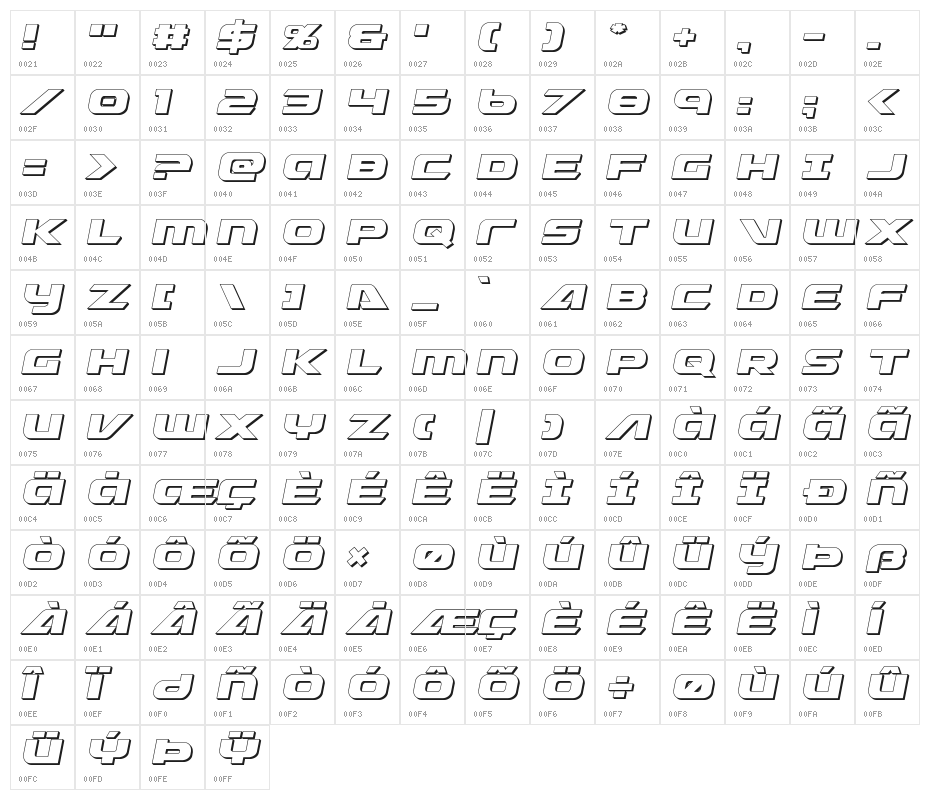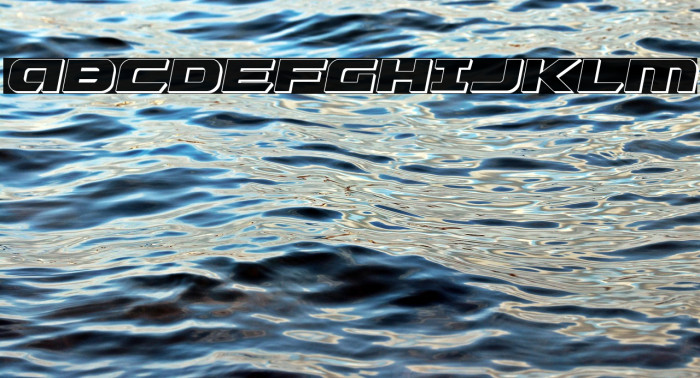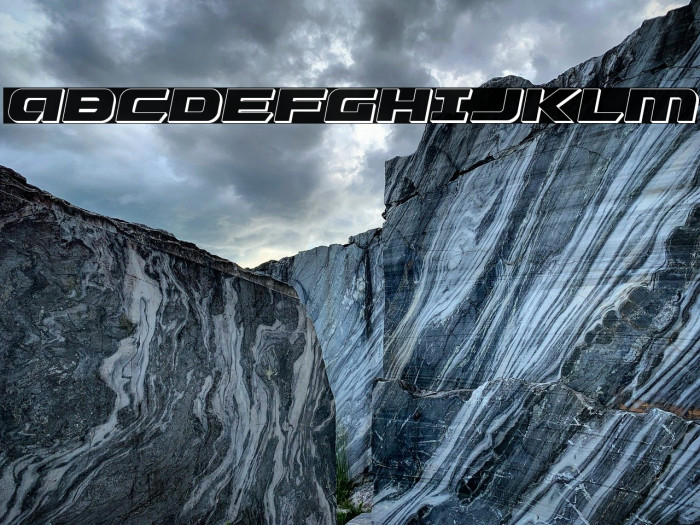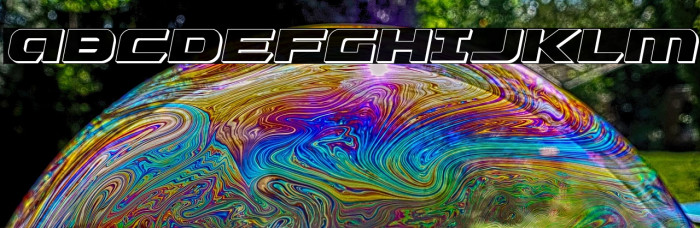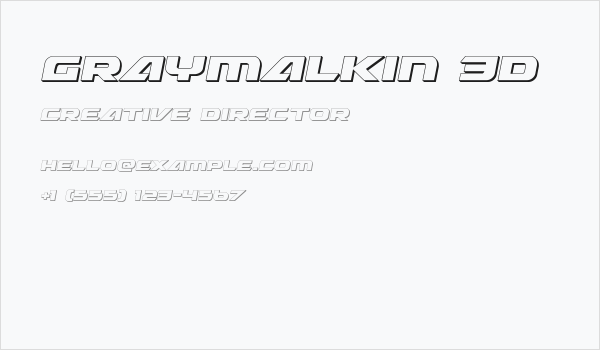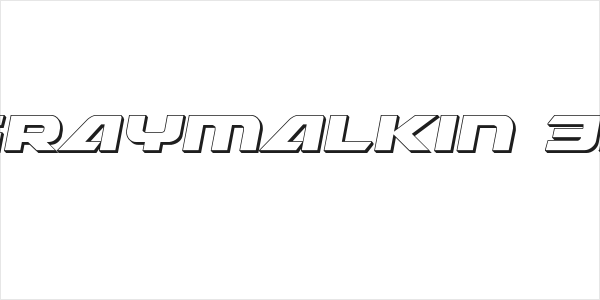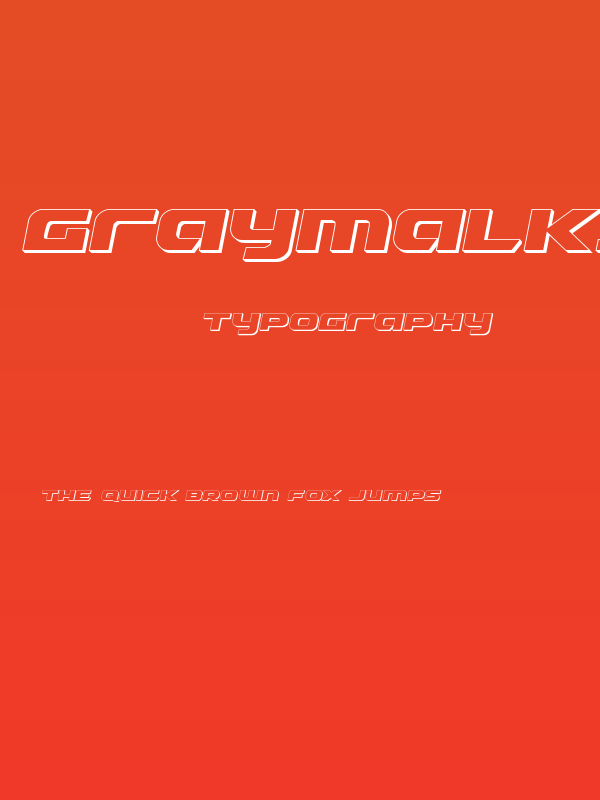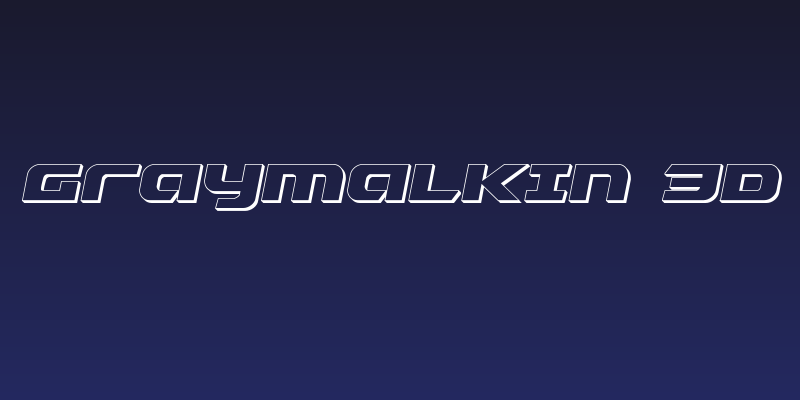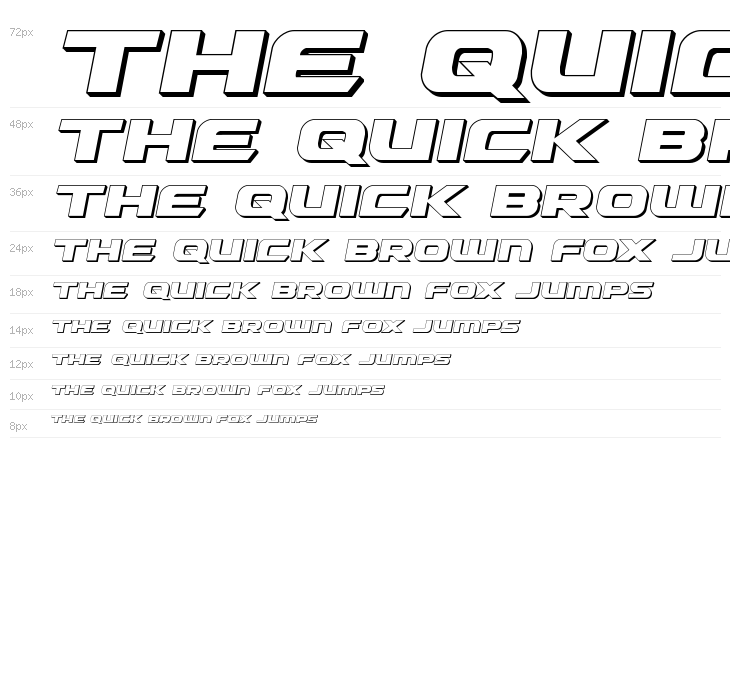
Graymalkin 3D Font
Graymalkin 3D Description
This font exhibits a bold, three-dimensional style with a futuristic and dynamic appearance. The characters are outlined, giving them a hollow look that enhances their 3D effect. The design features sharp angles and clean lines, creating a sense of movement and energy. The uppercase and lowercase letters maintain a consistent style, while the numerals and special characters complement the overall aesthetic. This font is visually striking and commands attention, making it suitable for projects that require a modern and impactful look.
| Proposed Projects | Ideal for sci-fi themed designs, video game titles, posters, and branding that requires a modern and energetic feel. |